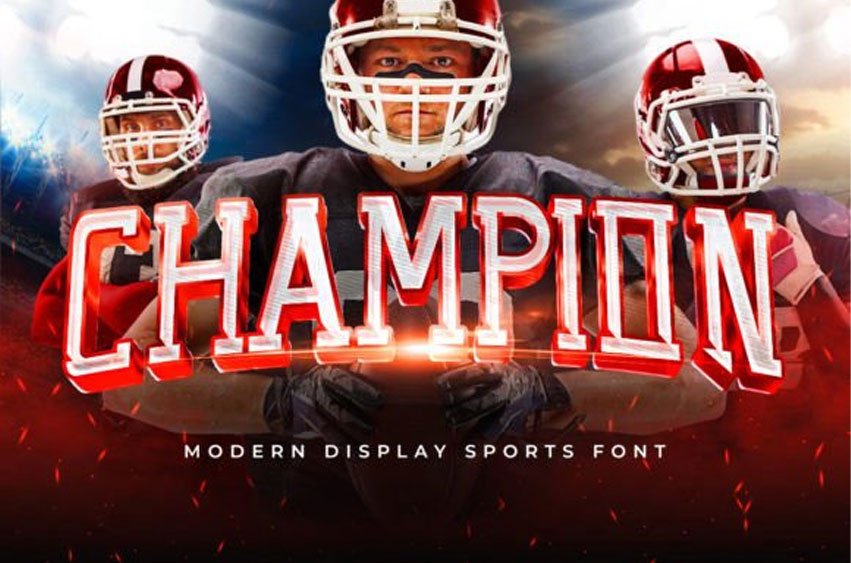
Champion Font
Champion Font is a powerful and commanding display font designed to capture the essence of athleticism and competitive spirit. Featuring strong, bold letterforms with a dynamic presence, this font is perfect for sports-related projects, including team logos, event posters, and sports apparel.
Its impactful design and clear readability make it ideal for headlines, banners, and branding that need to make a bold statement. Elevate your sports designs with Champion, and convey a sense of strength and excellence in every project.